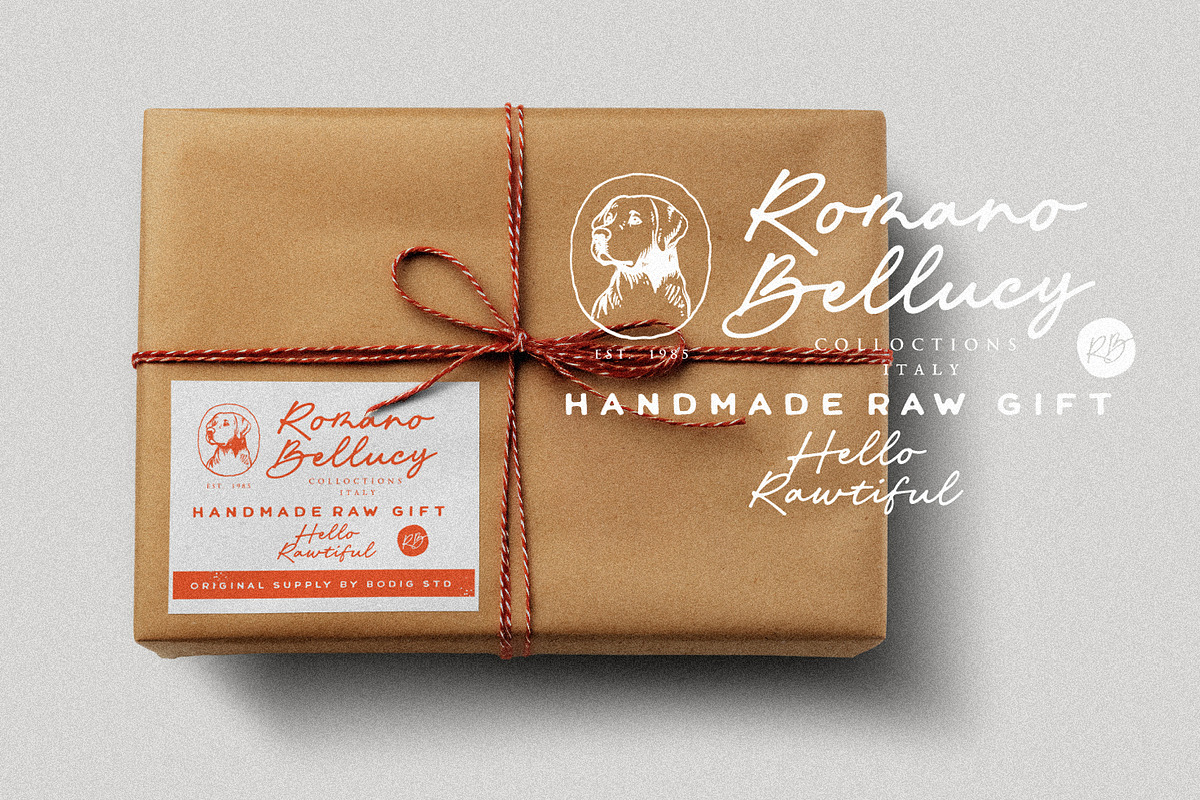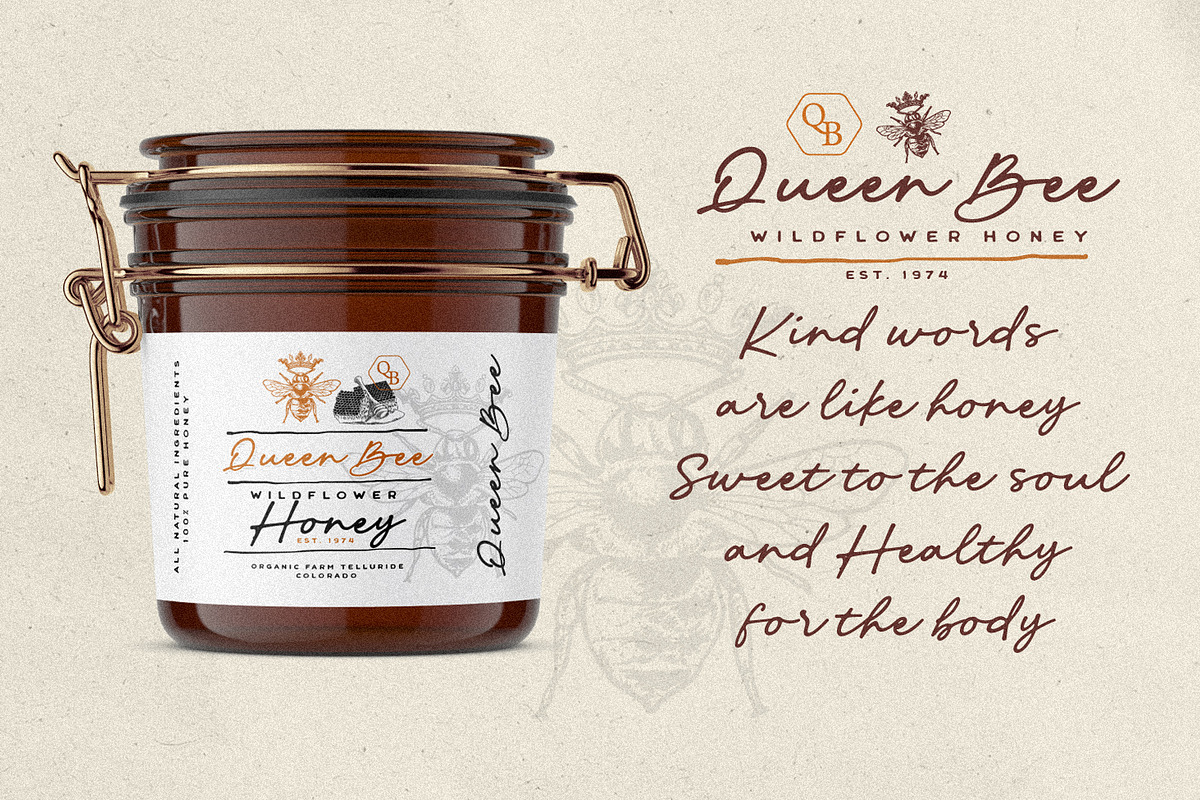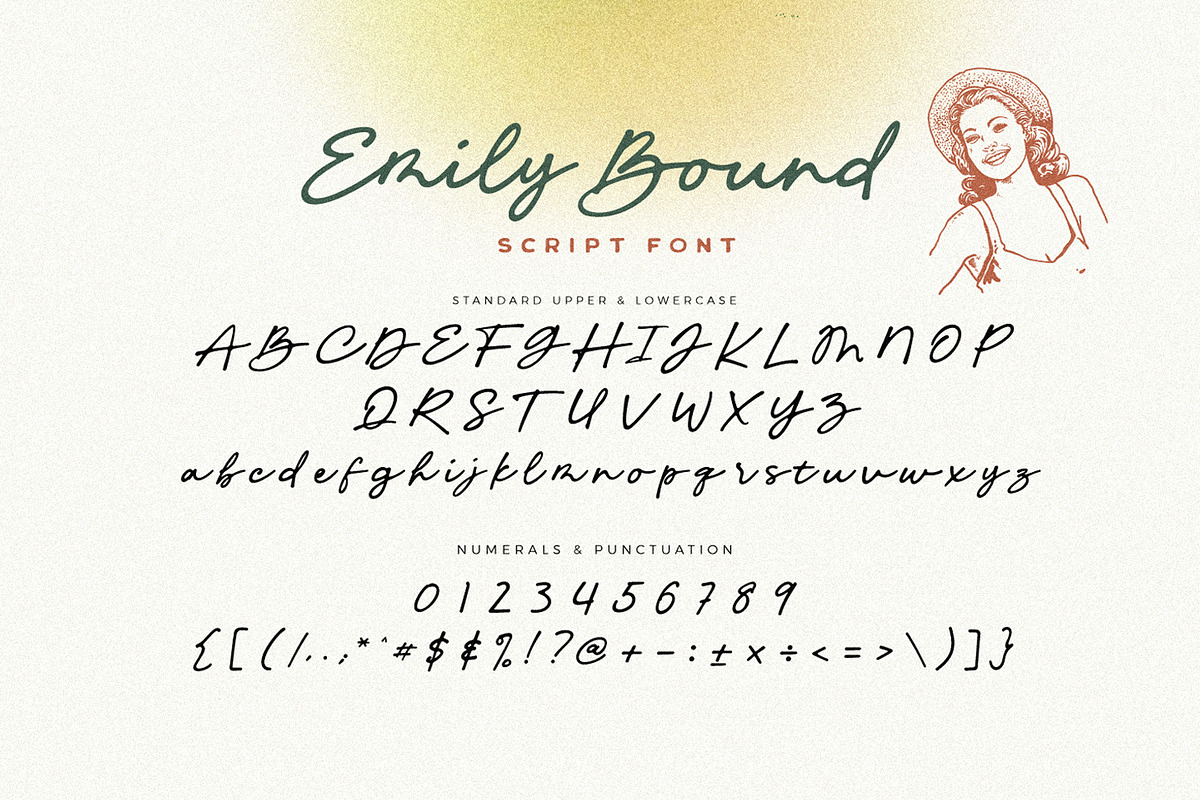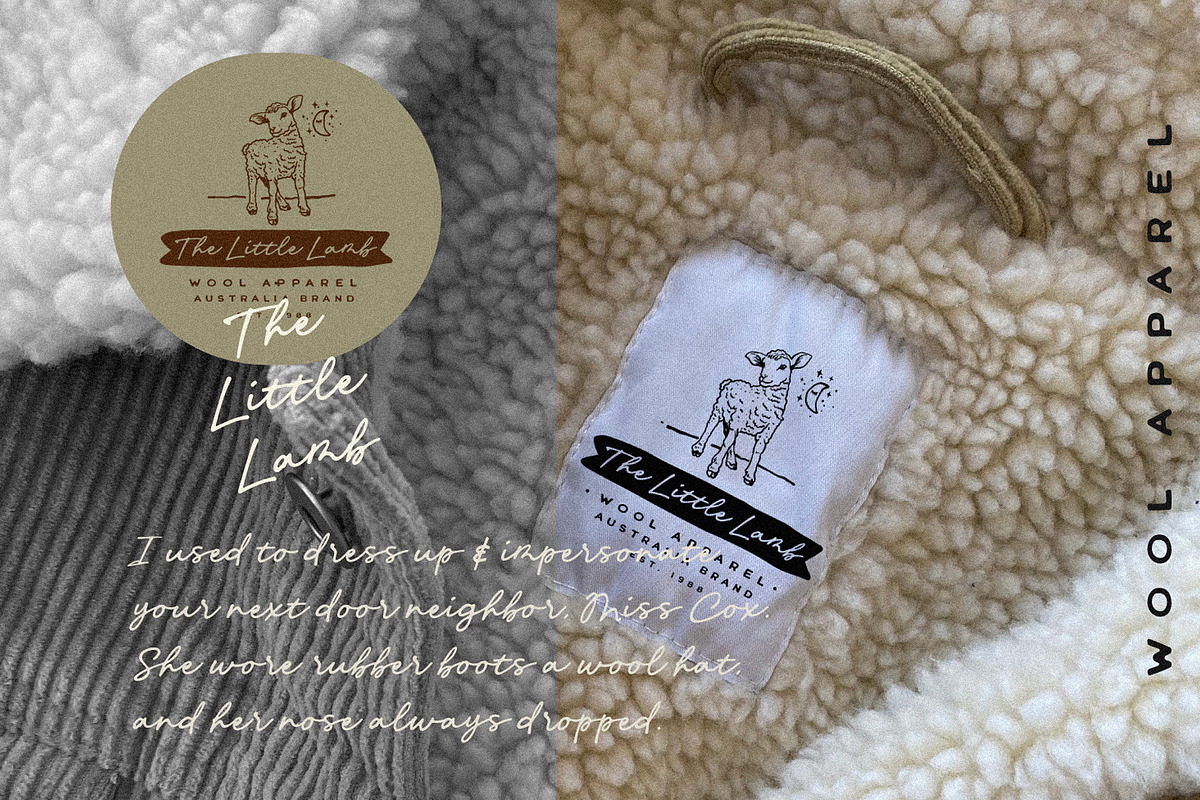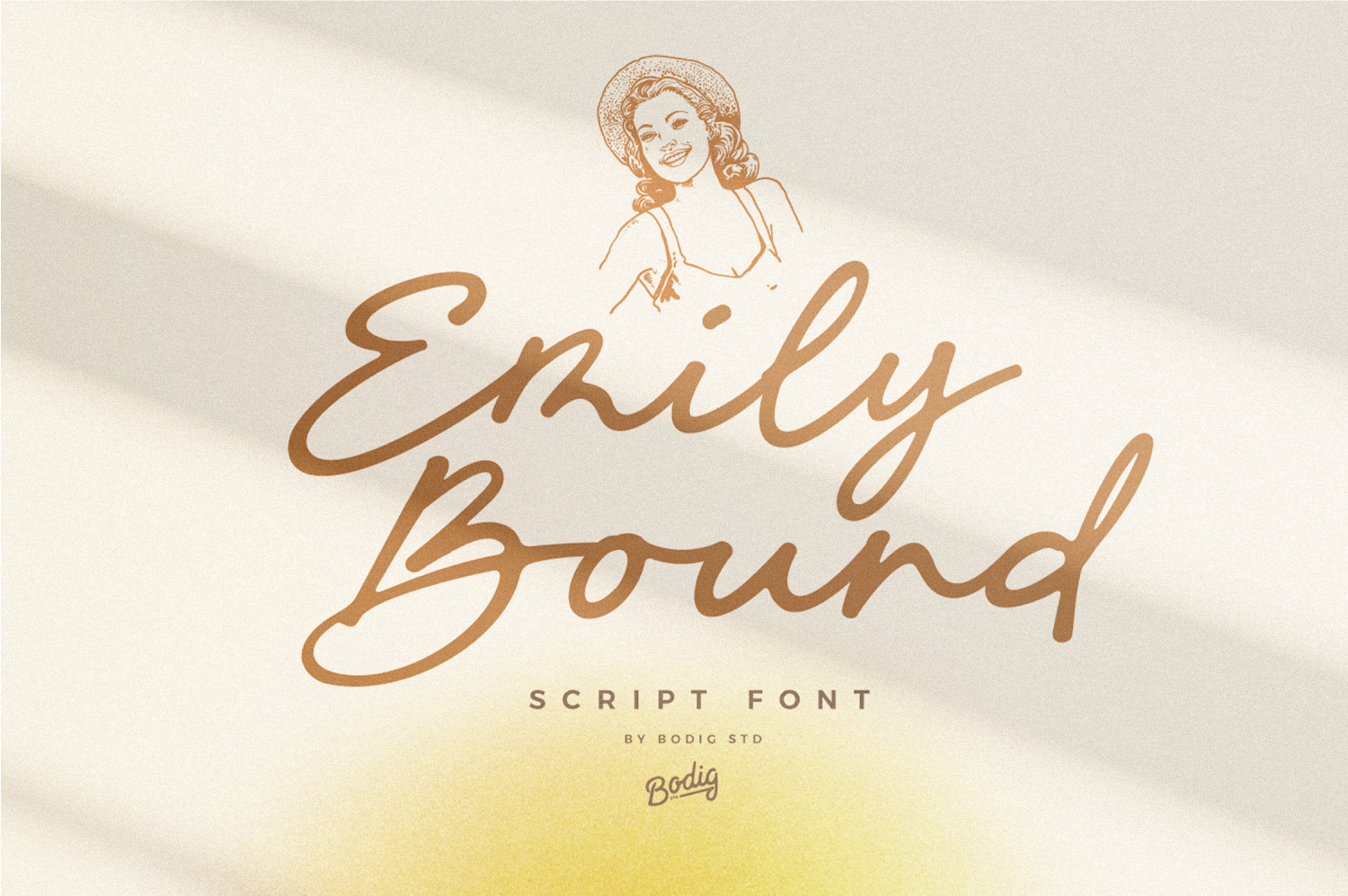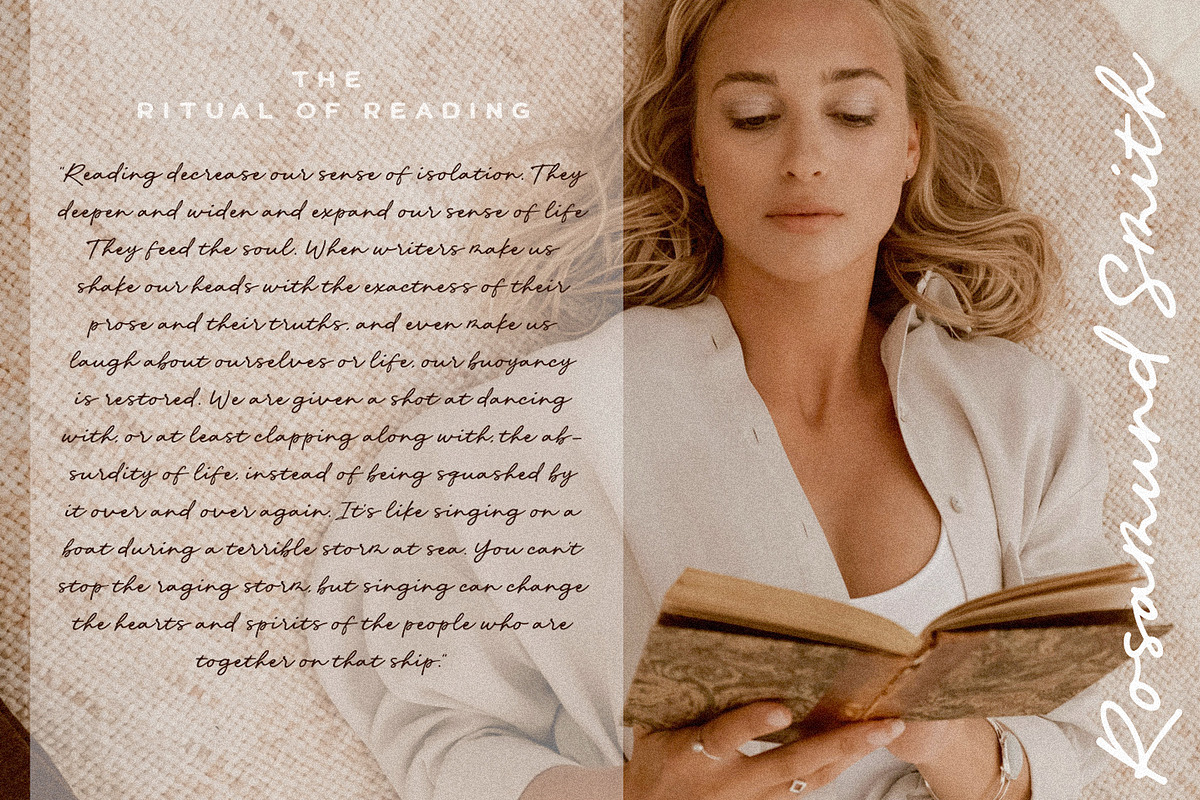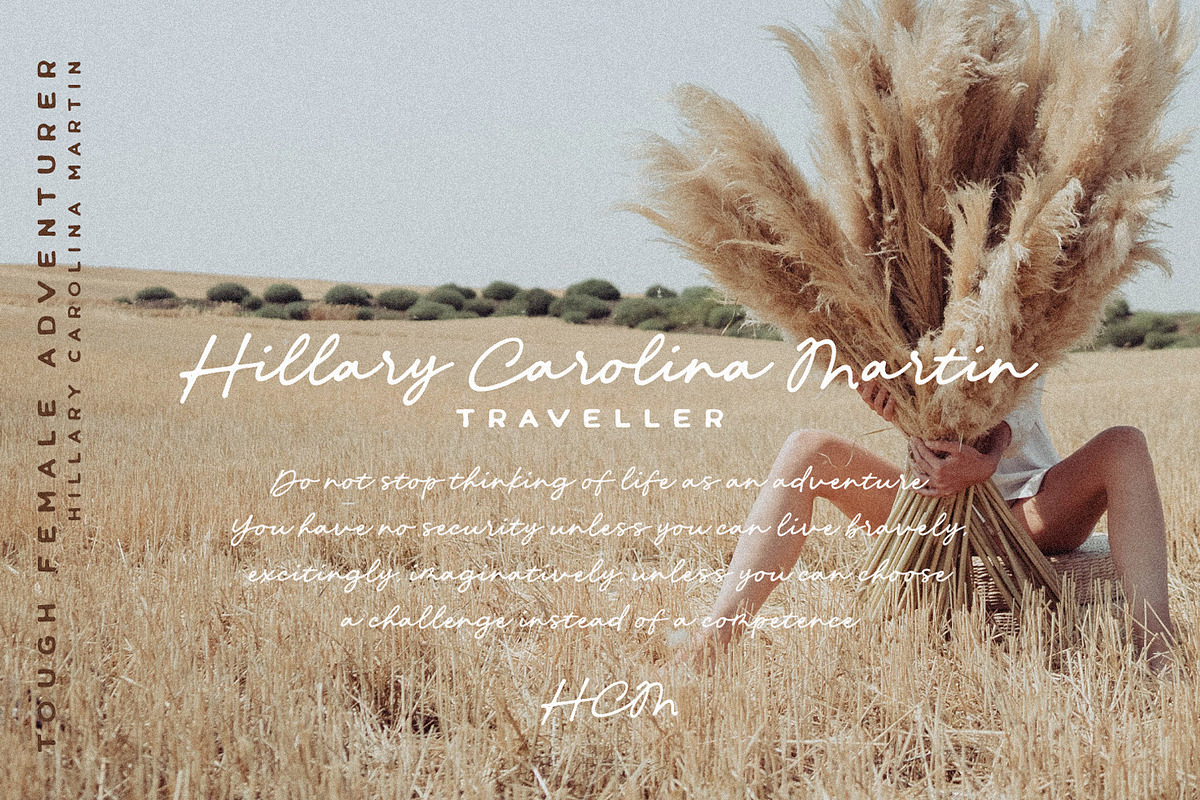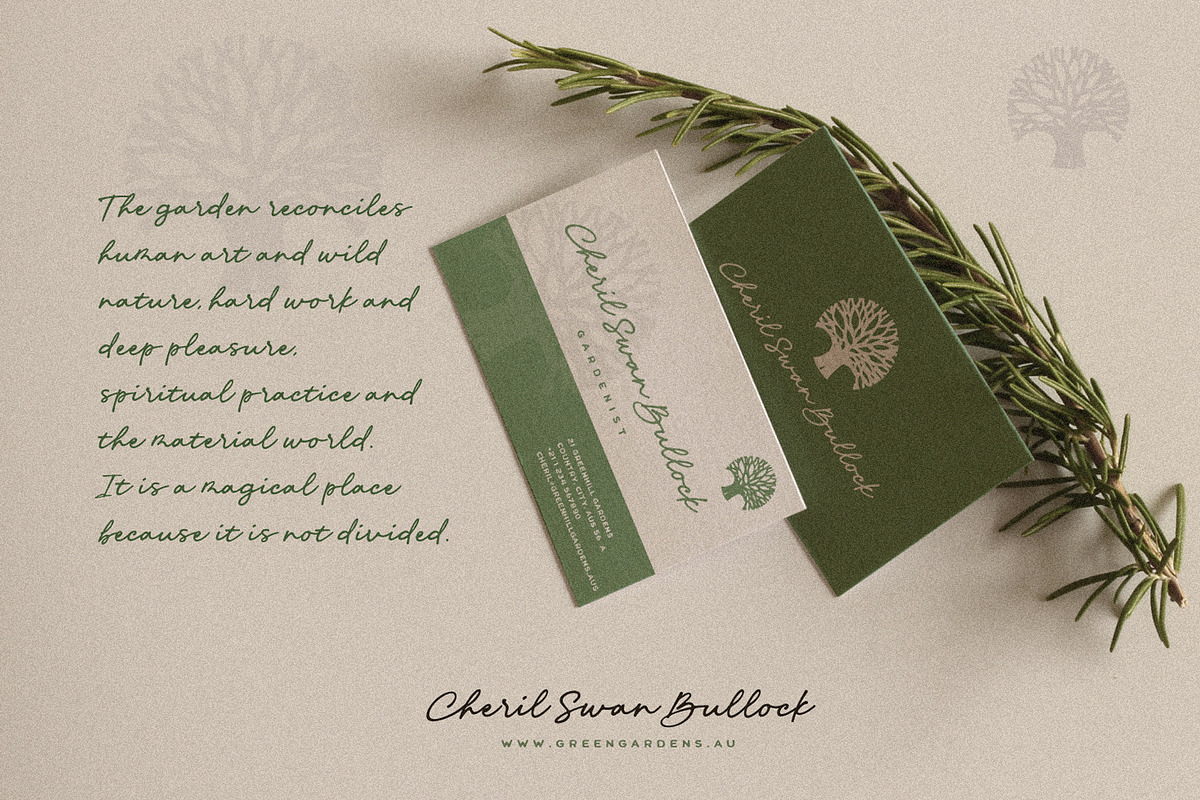
Emily Bound Font
Say hello to Emily Bound font! is a handwritten script font. This font looks beautiful on a variety of designs requiring a personalized style. We can use this for branding name, signature, label, invitation wedding designs, social media post, advertisements, logos and more projects that express beautyness and naturally handwritten look.